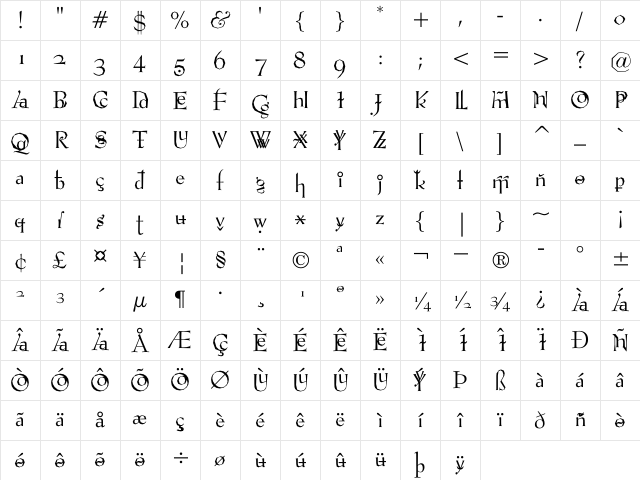
VTPompousCircumstance Chiseled
Style: Chiseled
Design Context for VTPompousCircumstance
VTPompousCircumstance is a composed and adaptable typeface that performs quietly and consistently across a wide range of design contexts.